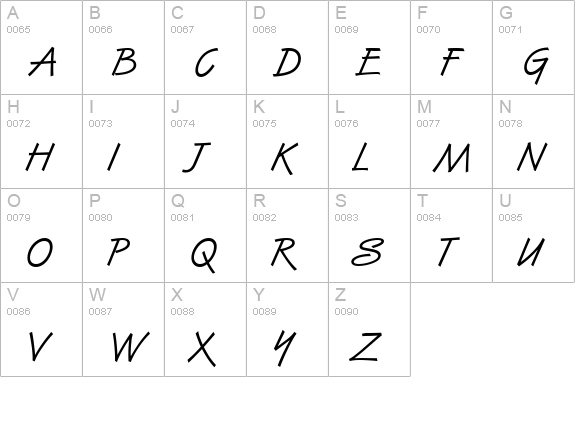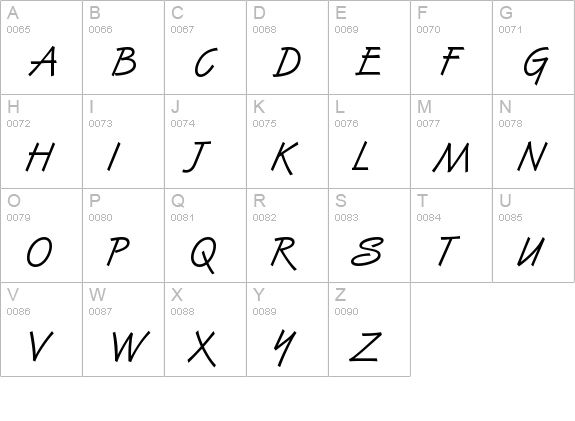
VanDijkDEE Font Details
Introducing VanDijkDEE, a stunning font that effortlessly combines elegance, modernity, and versatility. This typeface embodies the perfect balance between classic and contemporary design, making it suitable for a wide range of projects and applications. With its clean lines and sophisticated curves, VanDijkDEE exudes a sense of timeless beauty that will elevate any creative endeavor. Whether used for branding, editorial design, packaging, or web design, this font offers endless possibilities to express your unique style and captivate your audience. One of the standout features of VanDijkDEE is its exceptional readability, ensuring that your message is conveyed with clarity and impact. The carefully crafted letterforms are meticulously designed to ensure legibility in any size or format, making it a reliable choice for both print and digital projects. But what makes VanDijkDEE truly exceptional is that it is not only visually stunning, but also completely free. That's right - you can now enjoy the elegance and versatility of this remarkable font without spending a dime. VanDijkDEE is freely available to download at FontsMarket.com, where you can access this font and explore a vast collection of other high-quality typefaces. Whether you are a professional designer, a student, or simply someone with a passion for typography, VanDijkDEE is a must-have addition to your font library. Its timeless beauty, exceptional readability, and the fact that it is freely available make it an invaluable resource for any creative project. So don't miss out on the opportunity to enhance your designs with the unparalleled elegance of VanDijkDEE. Head over to FontsMarket.com now and download this remarkable font for free, and elevate your creativity to new heights.